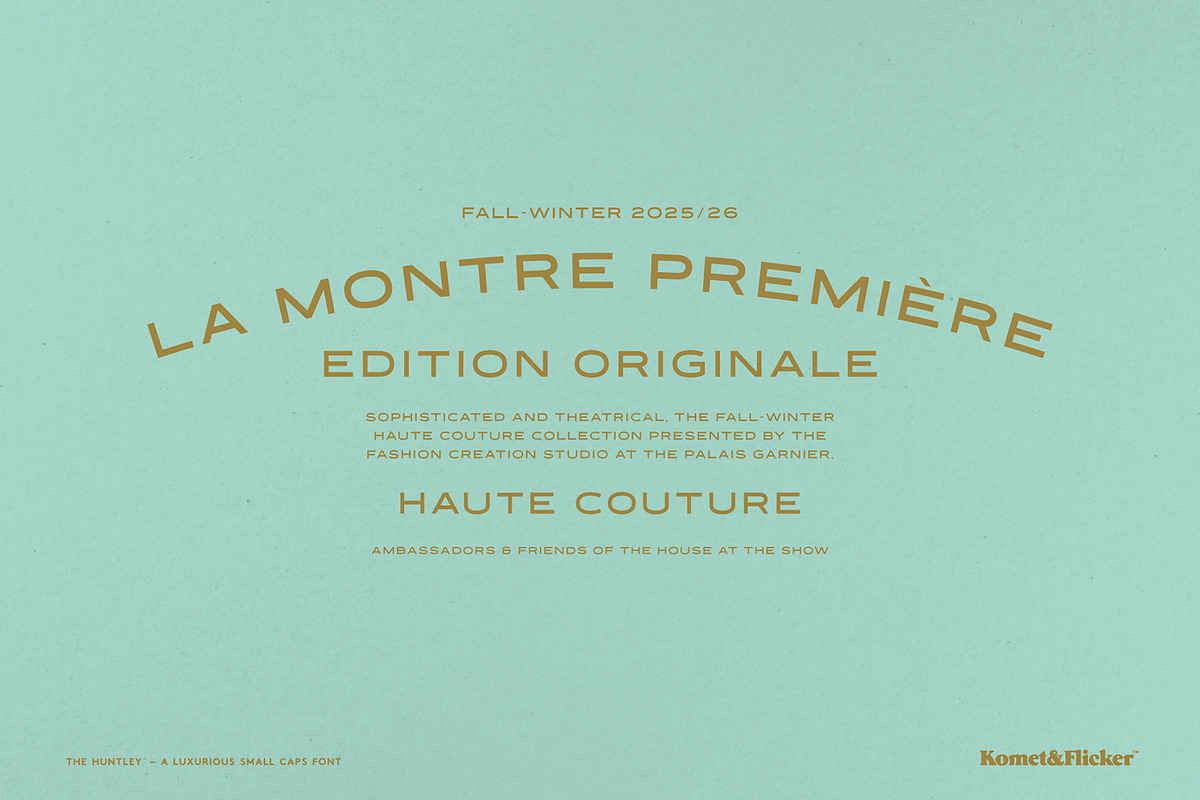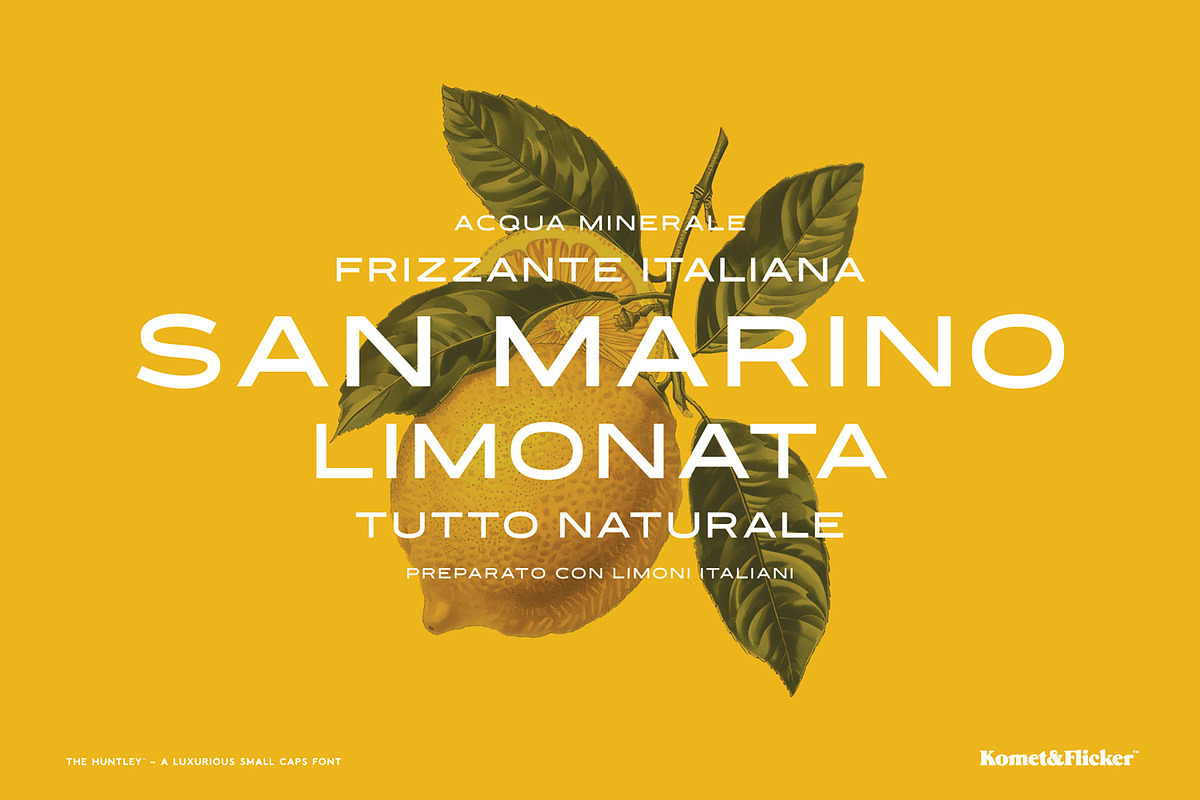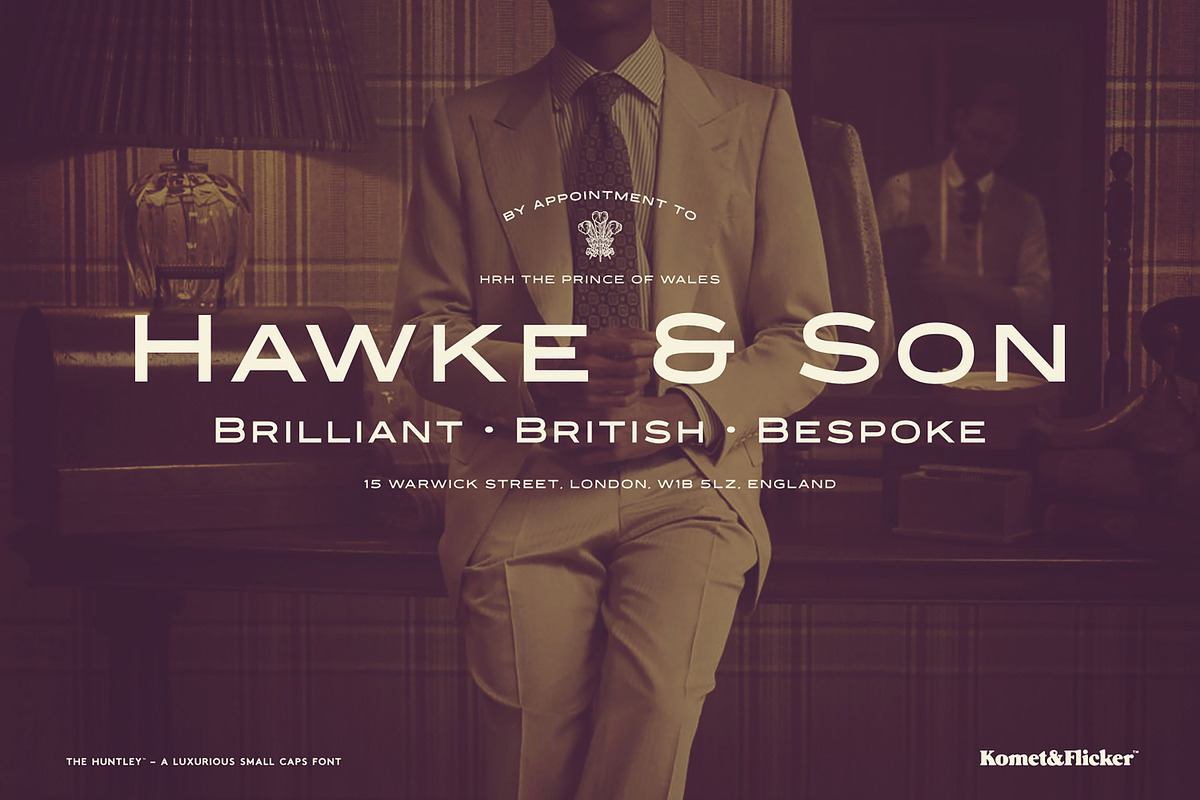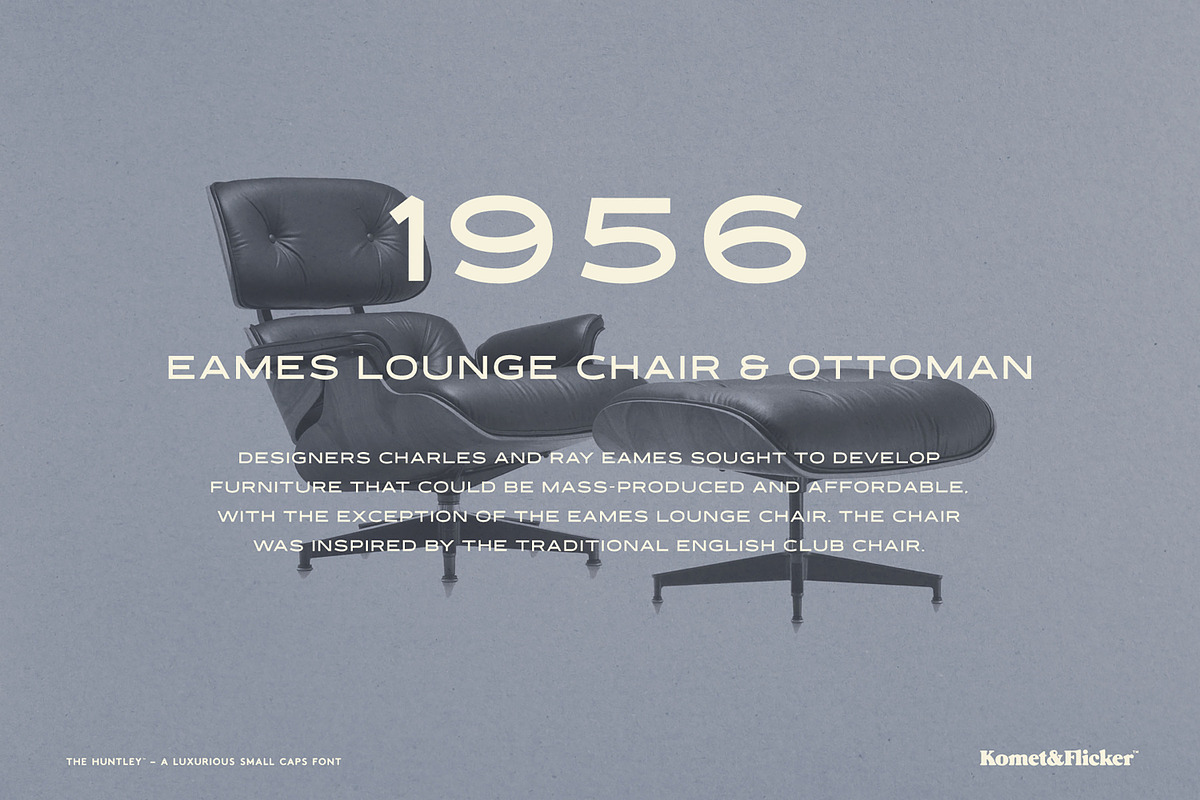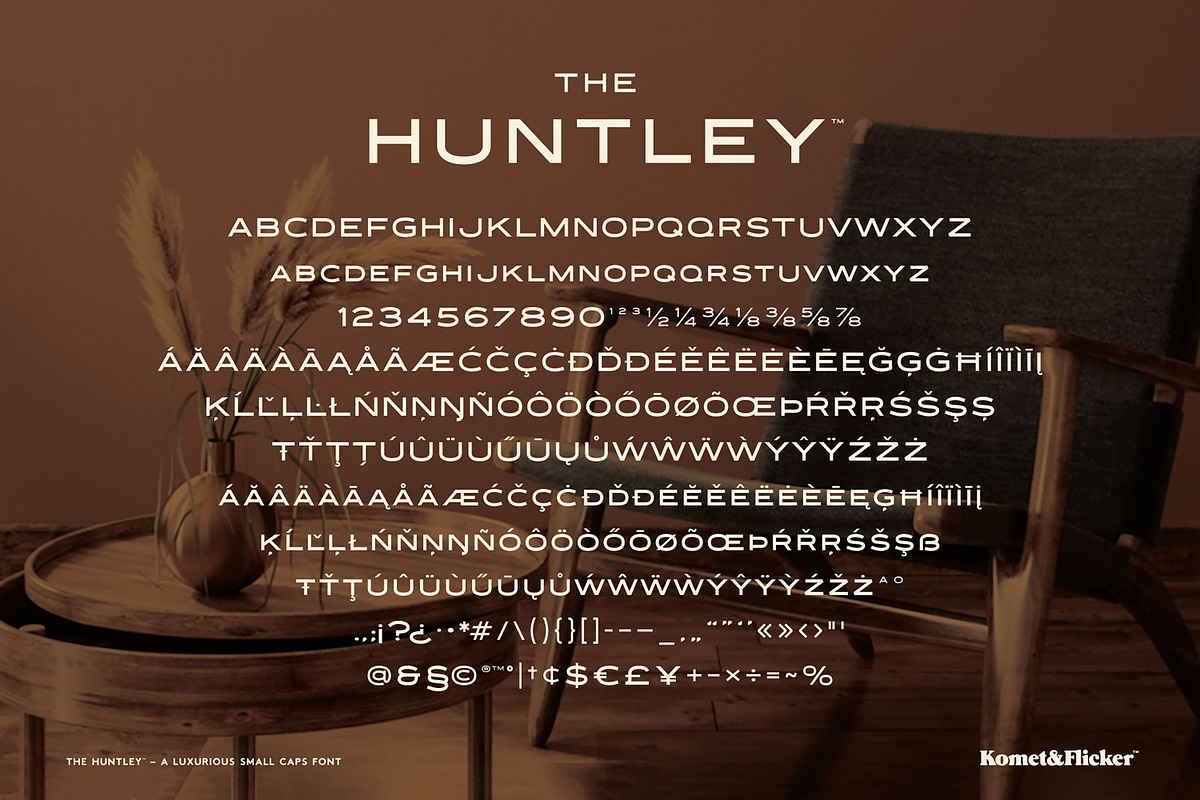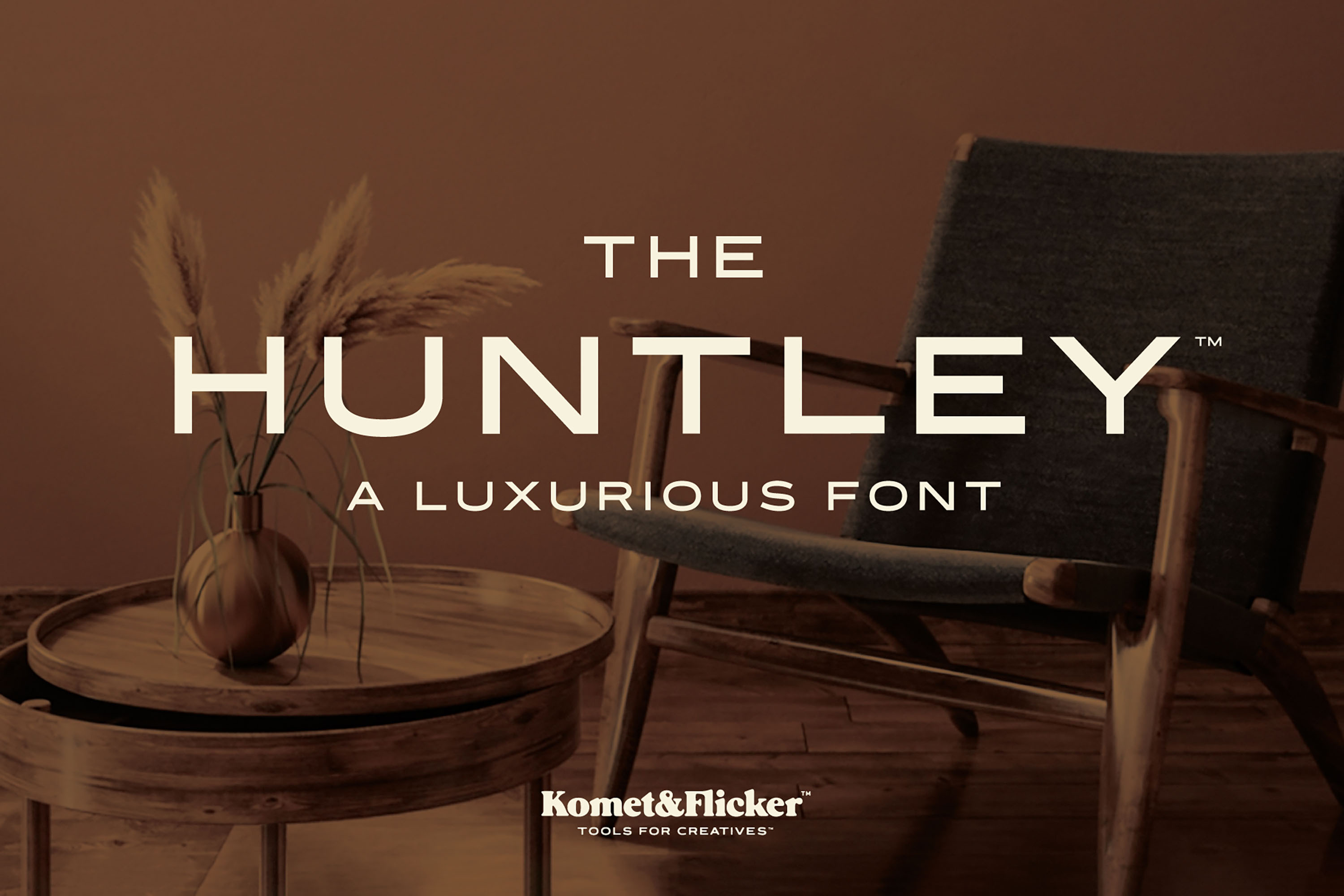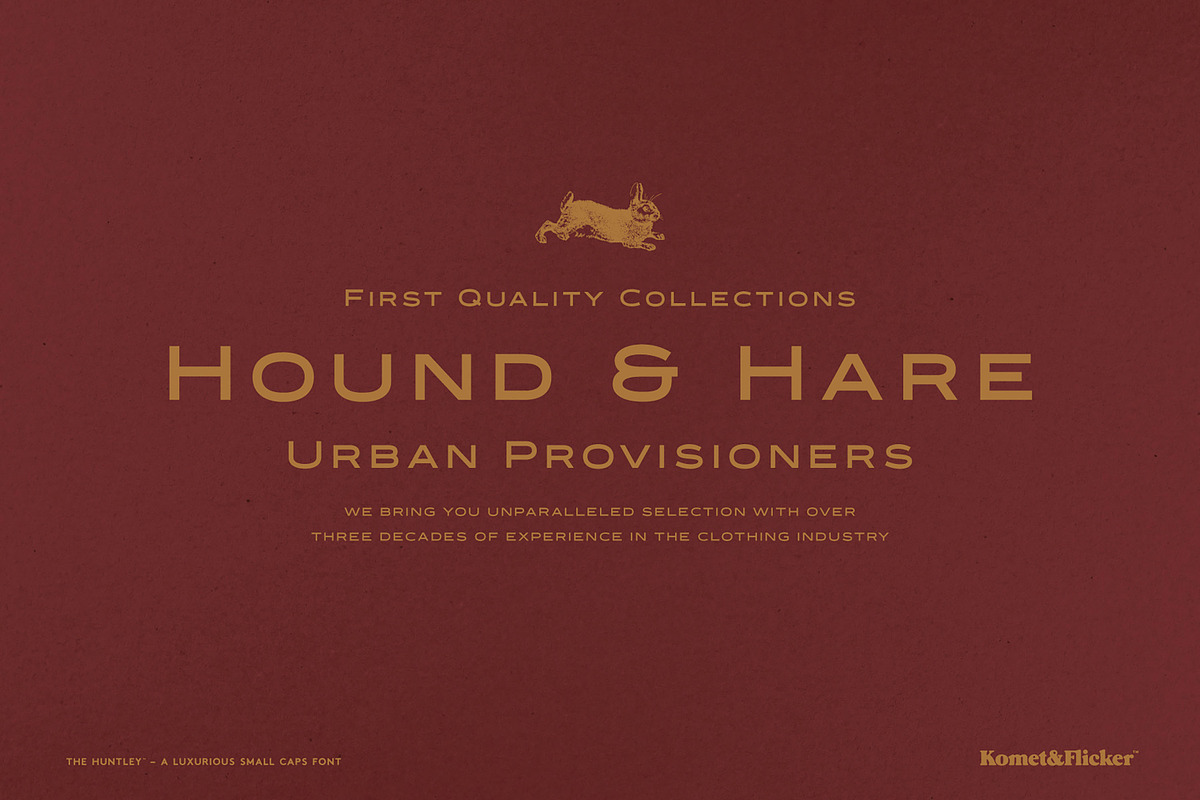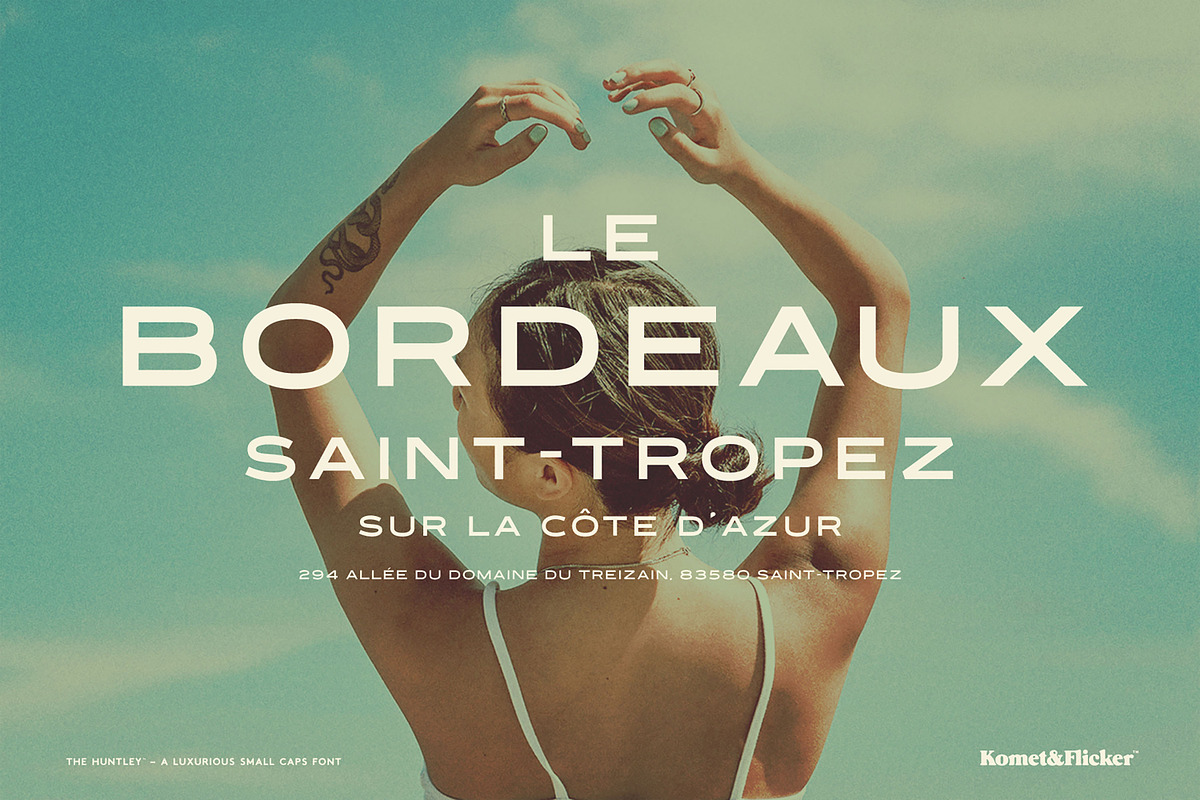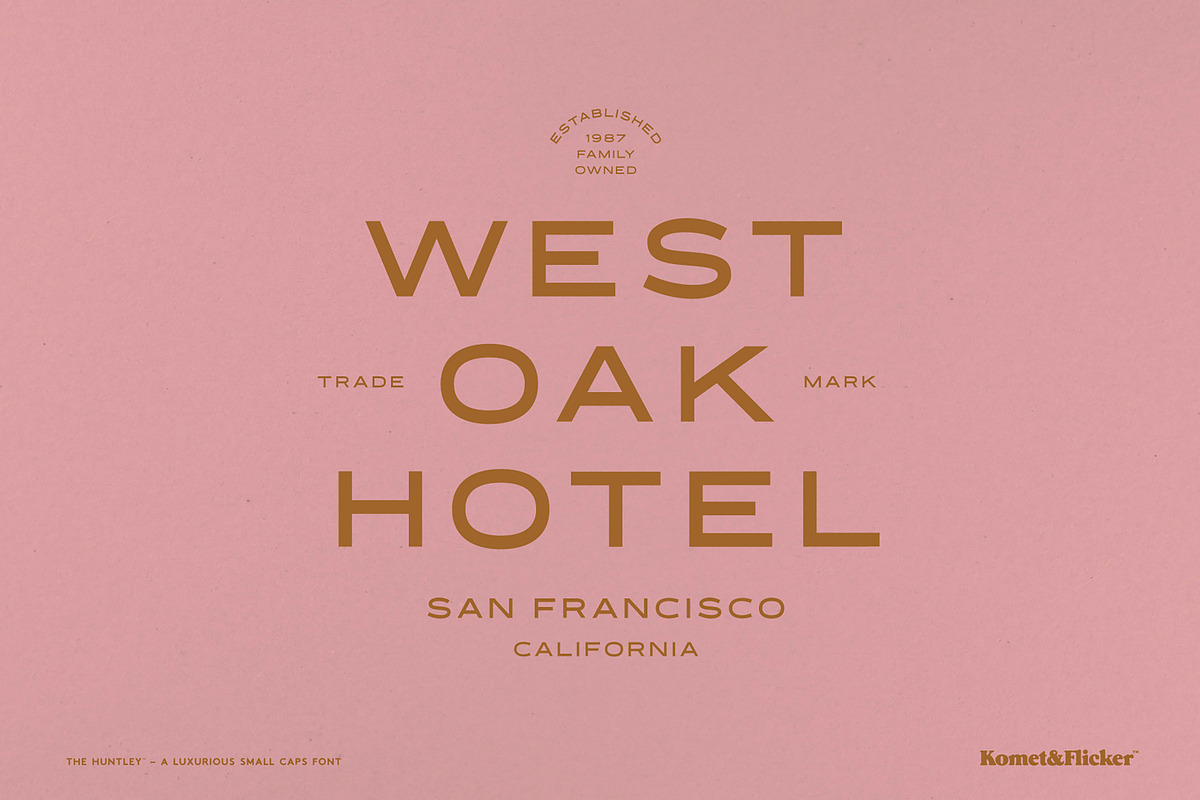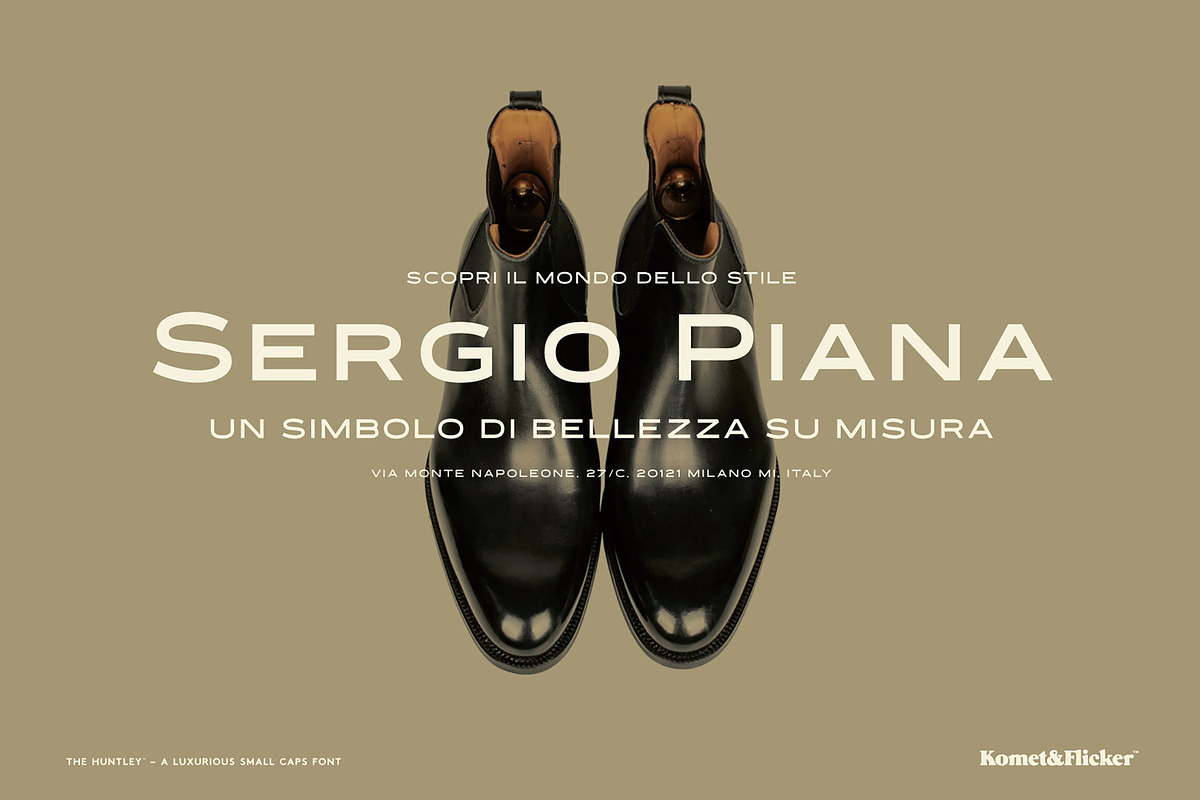
The Huntley – A Luxurious Font
Elevate your designs with The Huntley, an elegant and luxurious small caps font that exudes sophistication. Crafted for high-end luxury communications, this font combines timeless style with modern simplicity, making it the perfect choice for brands that demand an exquisite touch.
The Huntley's clean and legible letterforms ensure clarity and elegance, whether you're designing invitations, branding materials, or high-profile presentations. Its refined aesthetic seamlessly aligns with premium aesthetics, setting the stage for impactful communication.
Multilingual support features a comprehensive set of glyphs that covers all Basic, Western, and Central European languages. This ensures your message resonates beautifully, no matter where your audience is located. Also included is a set of pre-made common fractions.
Choose The Huntley for a font that embodies luxury, clarity, and versatility, making every word an exquisite statement. Transform your communications with a touch of elegance today!